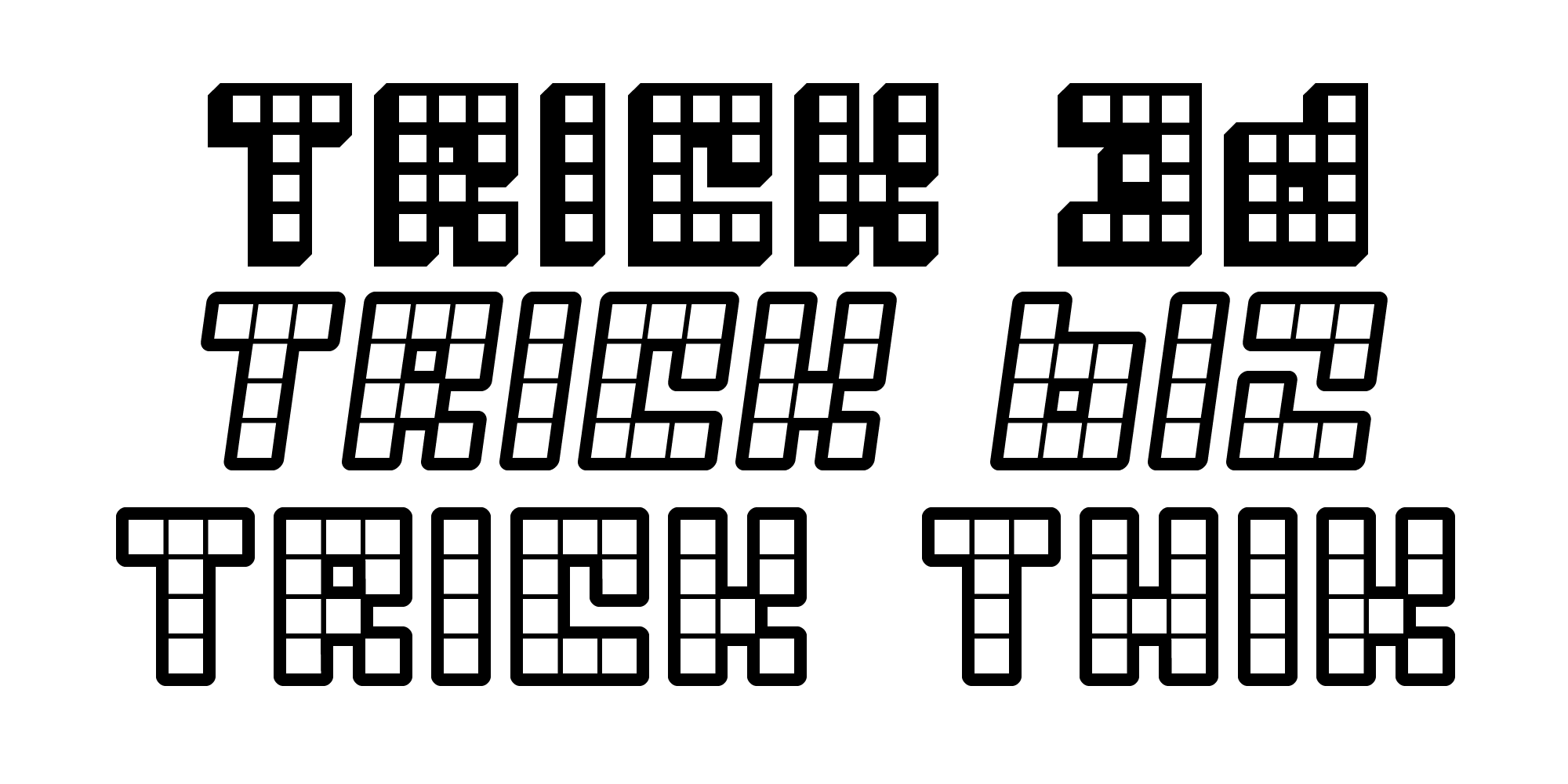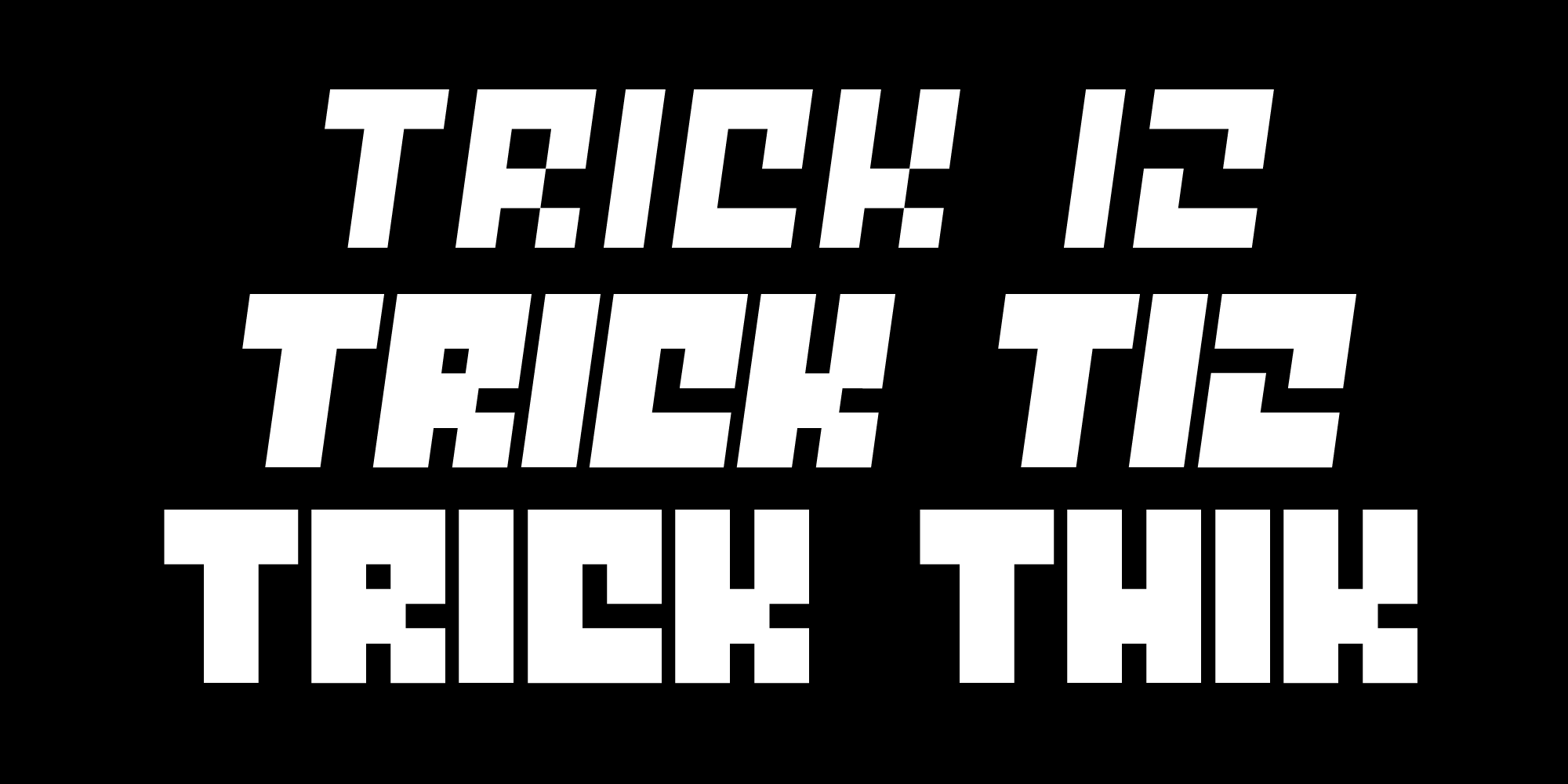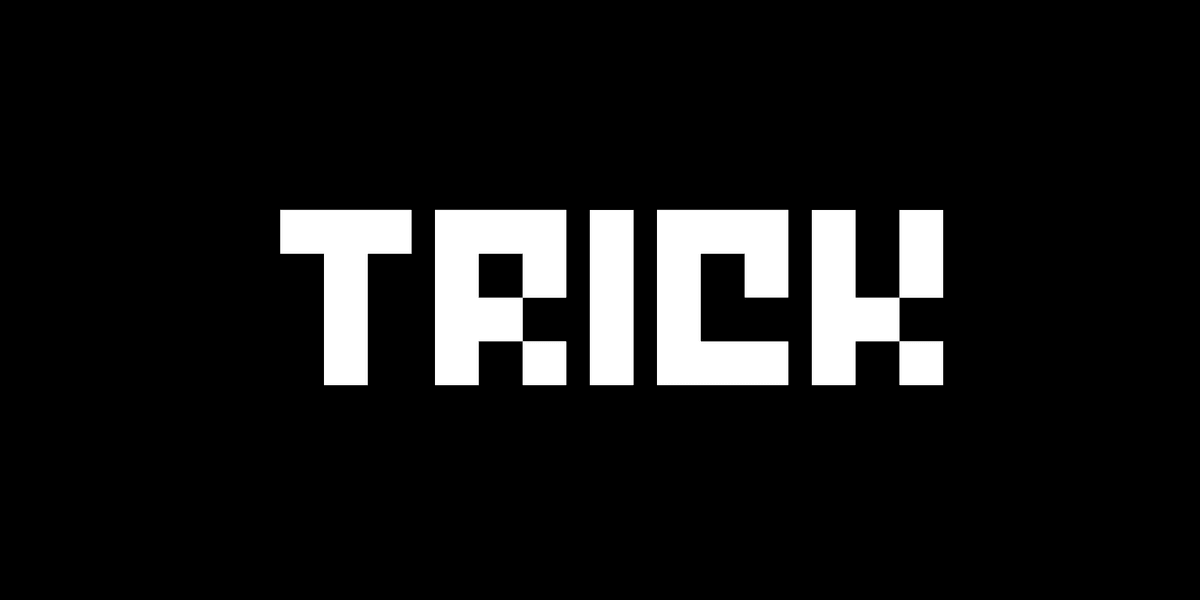
Trick started out as me playing with some squares in Fontographer, and before I knew it, there were seven wonderful typefaces chillin on my desktop. I don't expect you to use all seven, I don't expect you to like all seven, but see, here's the thing: I packaged all seven of them together in one file. And hey, what do you think of my fancy trancy background pattern? Oh yeah, I drew it myself. Pretty cutting edge stuff, huh?